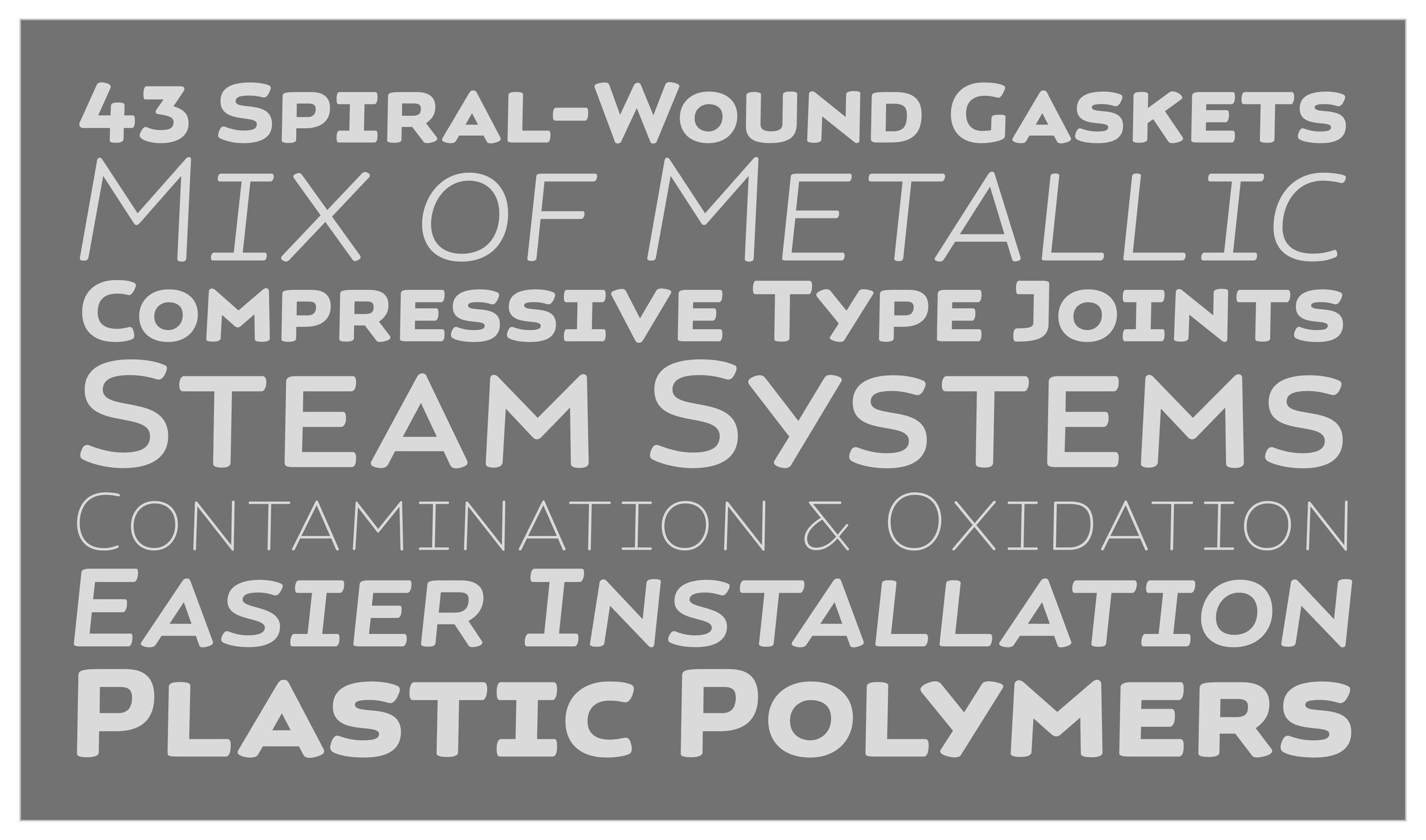
Gasket Font
Gasket Font excels in industrial design projects, automotive branding, mechanical engineering presentations, steampunk artwork, vintage machinery logos, technical documentation, retro advertising campaigns, manufacturing company materials, gear-themed graphics, and contemporary industrial web design.
What makes Gasket Font exciting is its unique mechanical aesthetic that perfectly captures the essence of industrial machinery and precision engineering. This distinctive typeface features bold, robust letterforms with subtle mechanical details that evoke images of gears, pistons, and industrial components. The font's strong character and technical precision make it ideal for projects requiring an authoritative, manufacturing-inspired appearance that commands attention and conveys reliability.
Gasket Font belongs to the industrial display font family, specifically designed to represent mechanical strength and technical precision. This font family typically includes regular, bold, condensed, and extended variants that provide designers with comprehensive typographic solutions for various industrial and technical applications.
Perfect for engineers, industrial designers, automotive enthusiasts, and creative professionals working in technical fields, this typeface excels in headers, logos, and bold display applications. The font's versatility extends across digital platforms, print materials, signage, and branding where industrial strength and reliability need emphasis.
The meticulously designed letterforms maintain excellent readability while incorporating subtle mechanical elements that enhance the overall industrial theme. From small technical labels to large-scale industrial signage, Gasket Font performs consistently while preserving its distinctive mechanical character and professional appearance.
Modern designers value how this font communicates strength, precision, and industrial heritage simultaneously. Its compatibility with professional design software ensures seamless workflow integration, while the font's bold personality instantly establishes credibility in technical and industrial contexts.